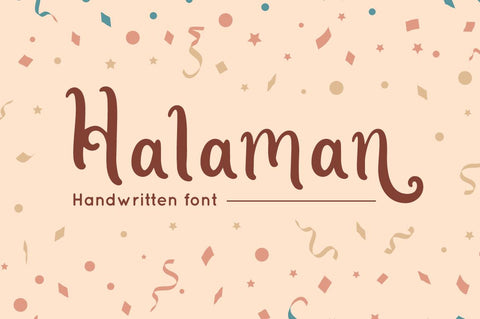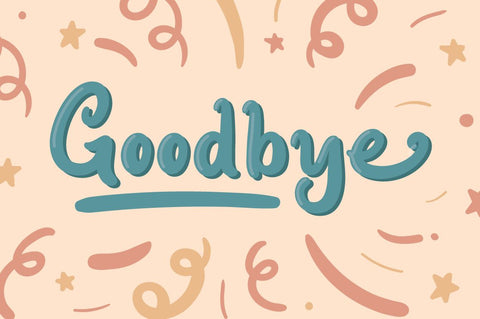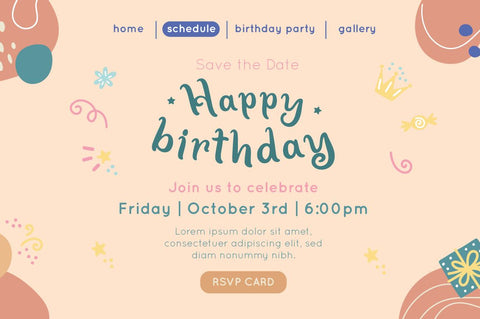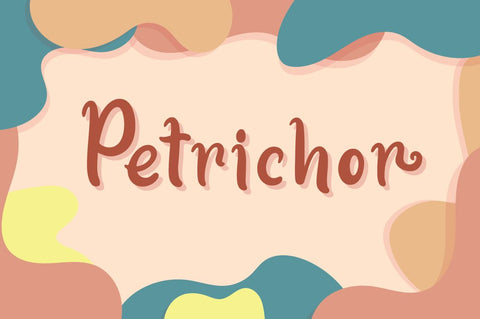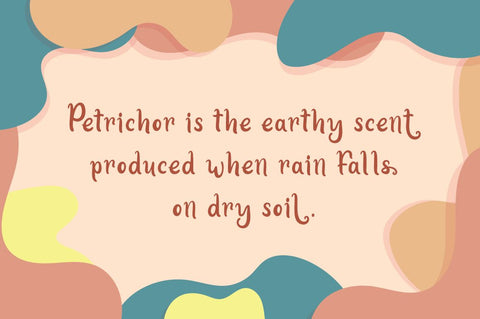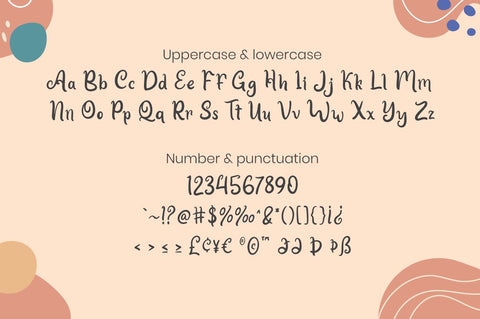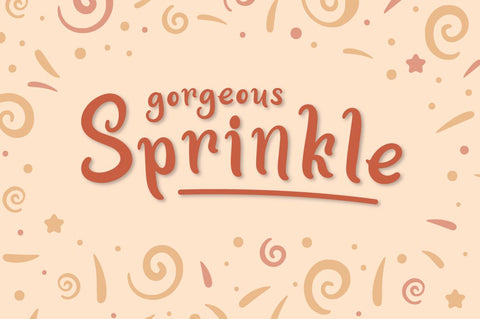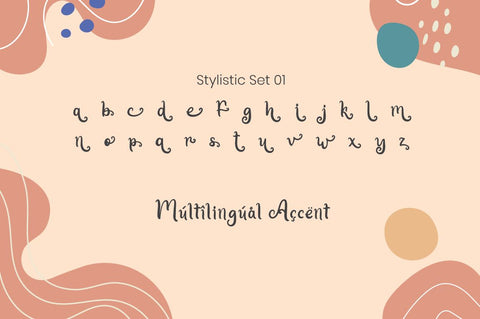
Halaman - Handwritten font
Halaman is Handwritten font with swash style, perfect for wedding design
Combine it with Halaman - ending Swash to make an amazing effect on your letter!
Halaman perfect for display promotion, branding, logo, invitation, stationery, social media post, product packaging, merchandise,
blog design, game titles, cute style design, Book/Cover Title and more.
- Ending Swash